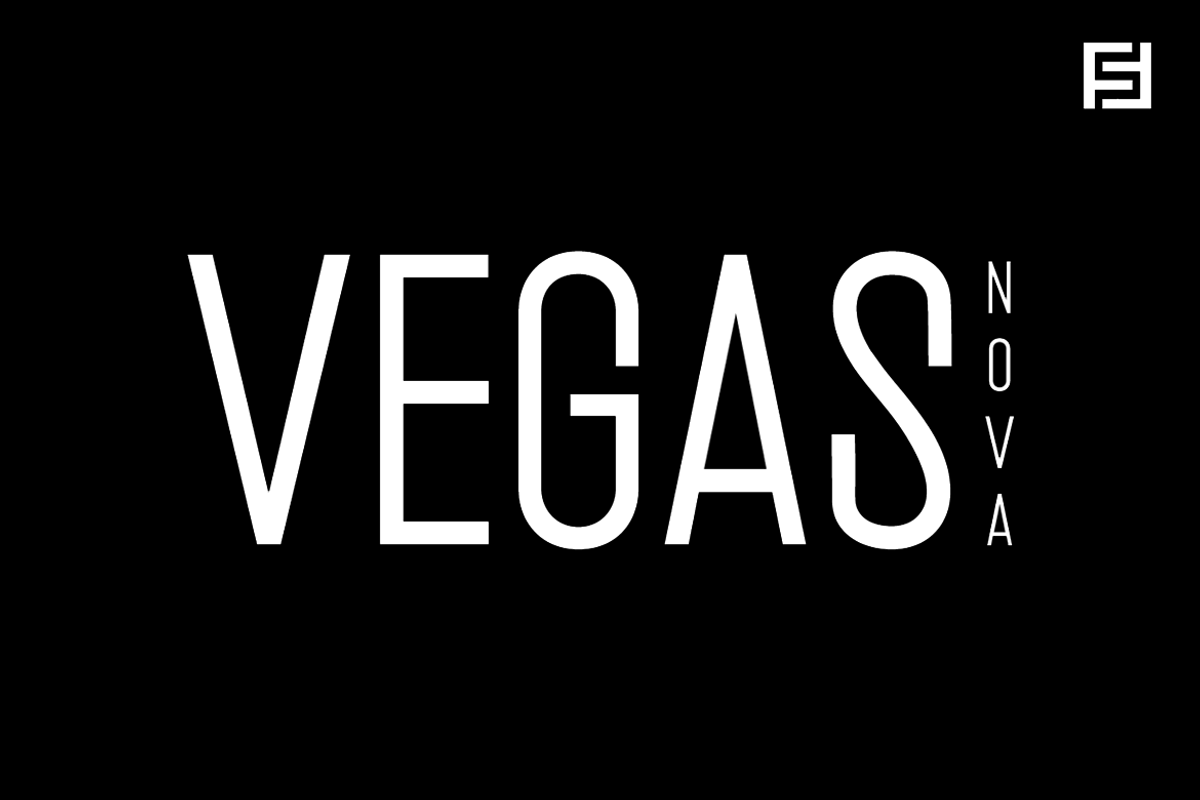
Vegas Nova - Unique Modern Typeface Free Download
Vegas Nova – Unique Modern Typeface Free Download
The Vegas Nova – Unique Modern Typeface Free Download is a bold and stylish font that merges futuristic design with sleek minimalism. Perfect for branding, editorial layouts, fashion campaigns, tech-inspired projects, posters, and high-end packaging, Vegas Nova stands out with its clean lines and creative letterforms.
Its unique geometry and sharp details give it a contemporary, upscale feel while maintaining excellent readability. This typeface includes uppercase and lowercase letters, numbers, punctuation, and multilingual support—offering all the essentials for a professional design workflow.